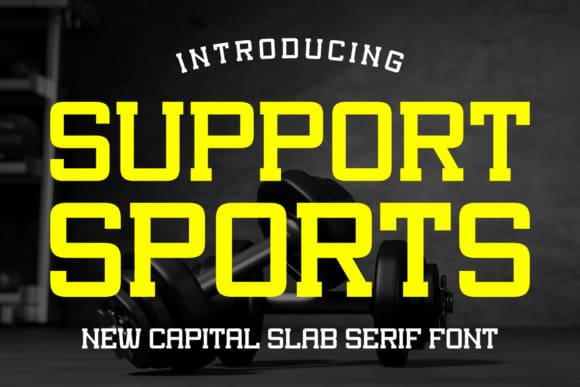
Support Sports Font
Support Sports Font is a bold and assertive slab serif font. No matter the topic, this font will be an incredible asset to your fonts’ library, as it has the potential to elevate any creation.